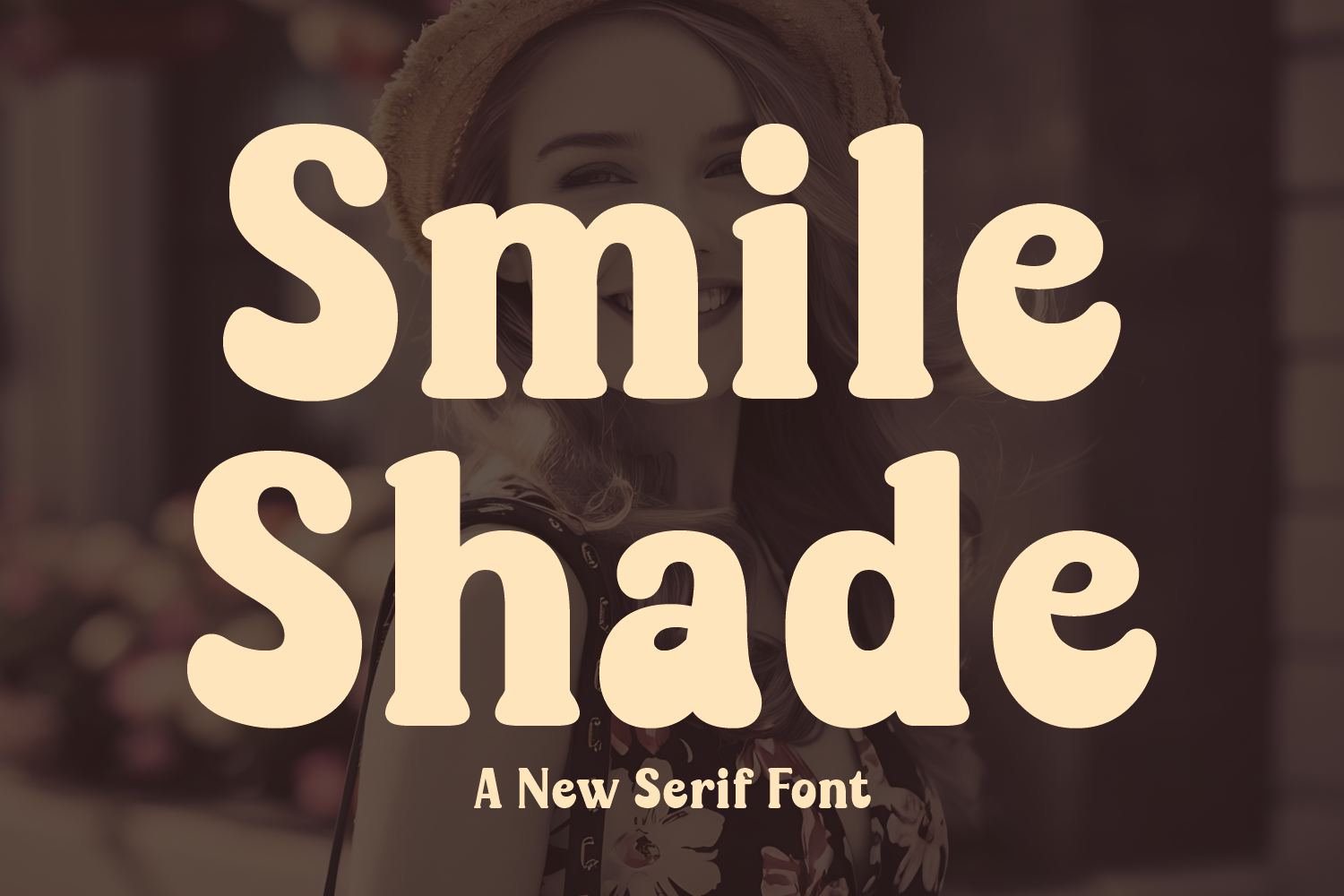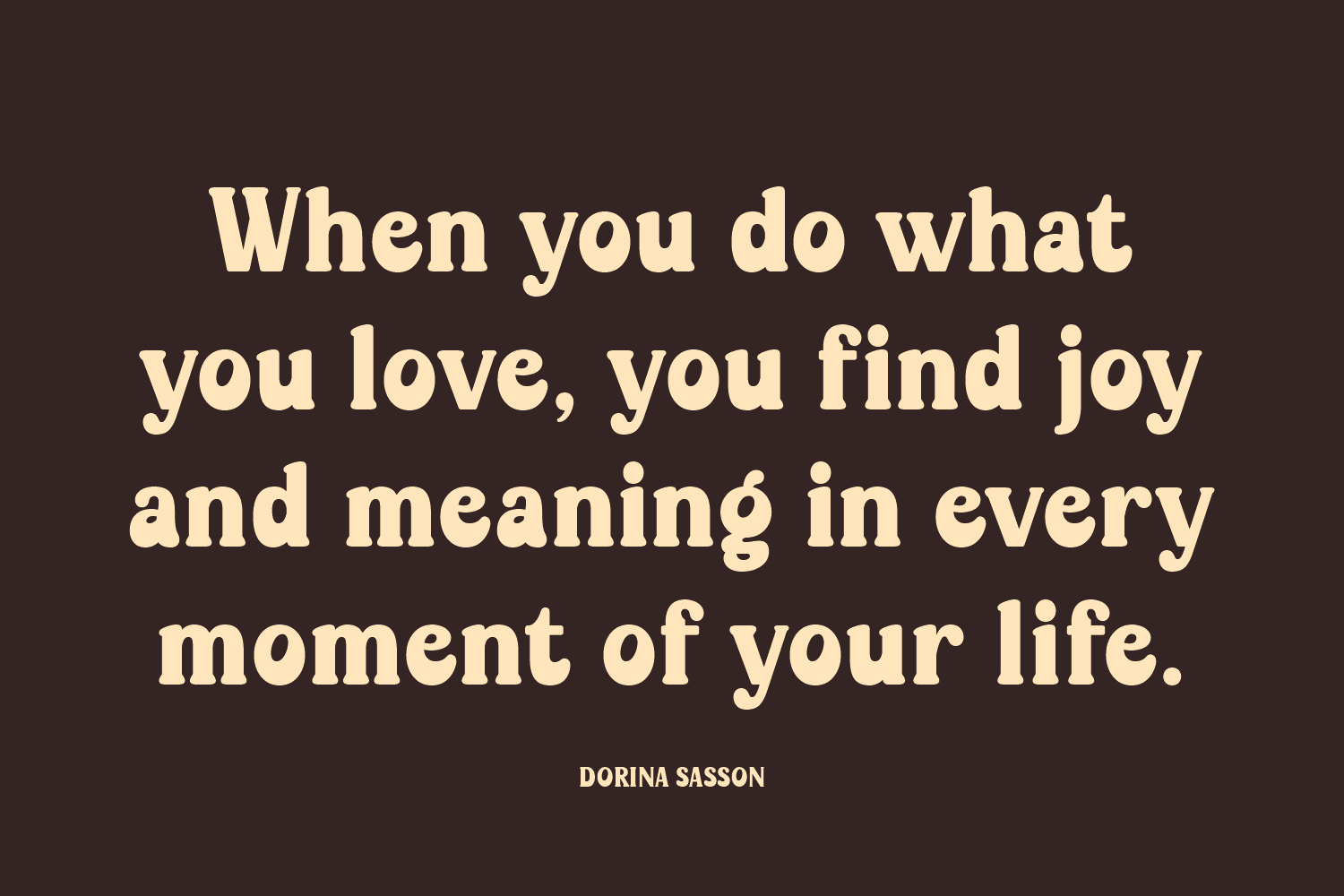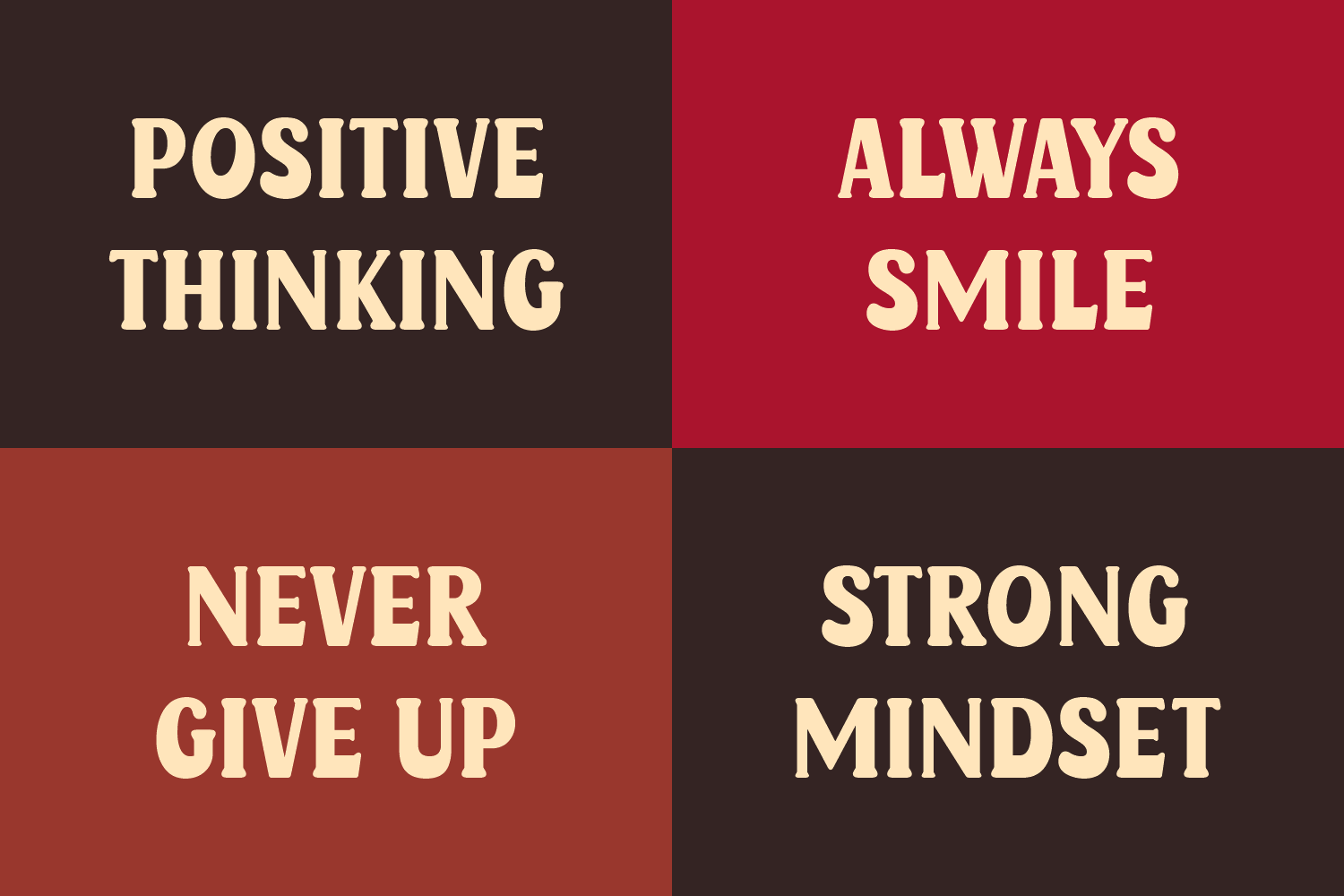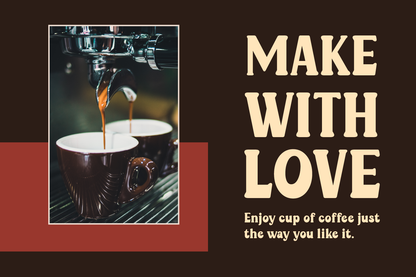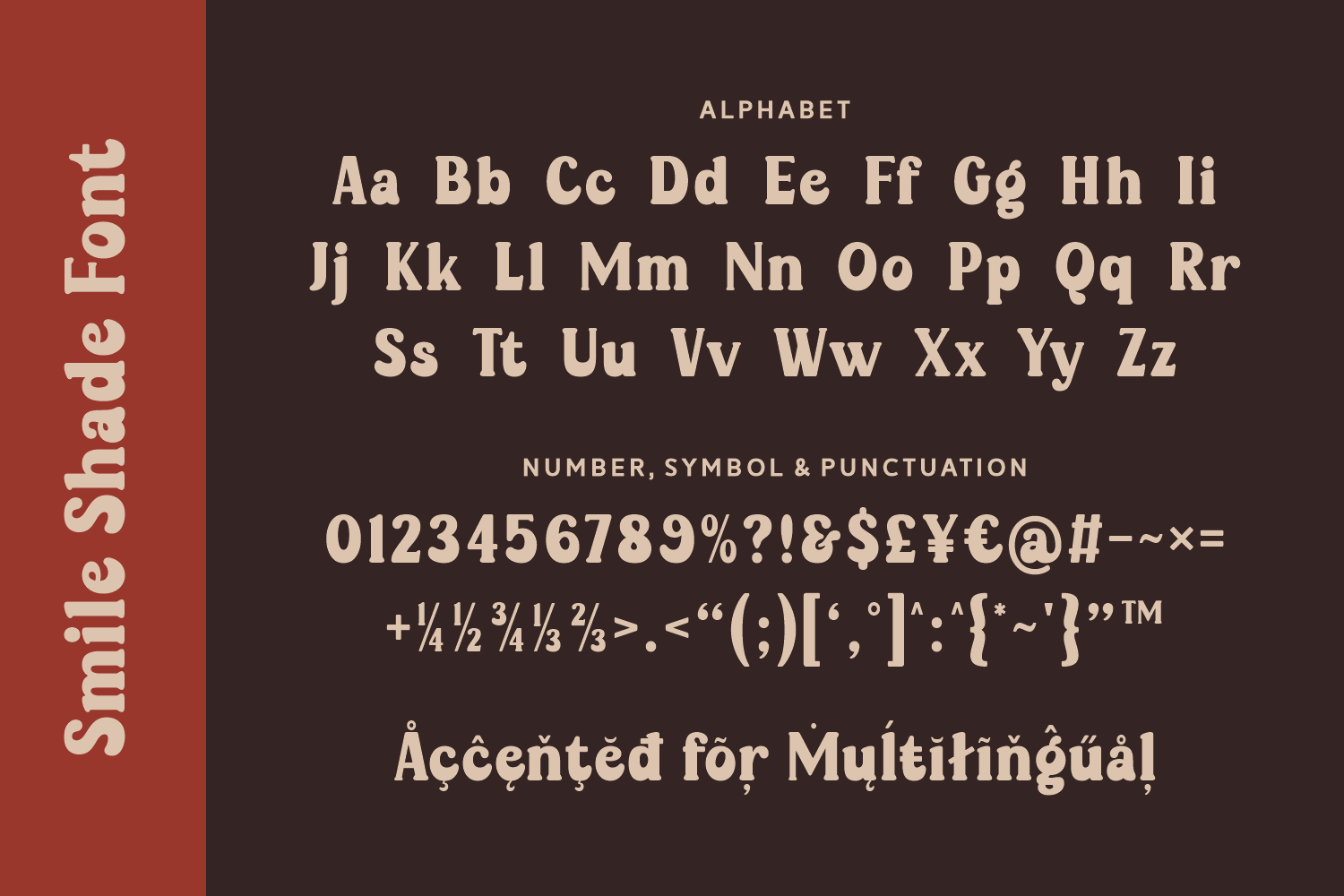
Smile Shade is a bold and cheerful serif font designed to brighten up any project. With its soft curves, friendly terminals, and playful proportions, this typeface radiates warmth and approachability.